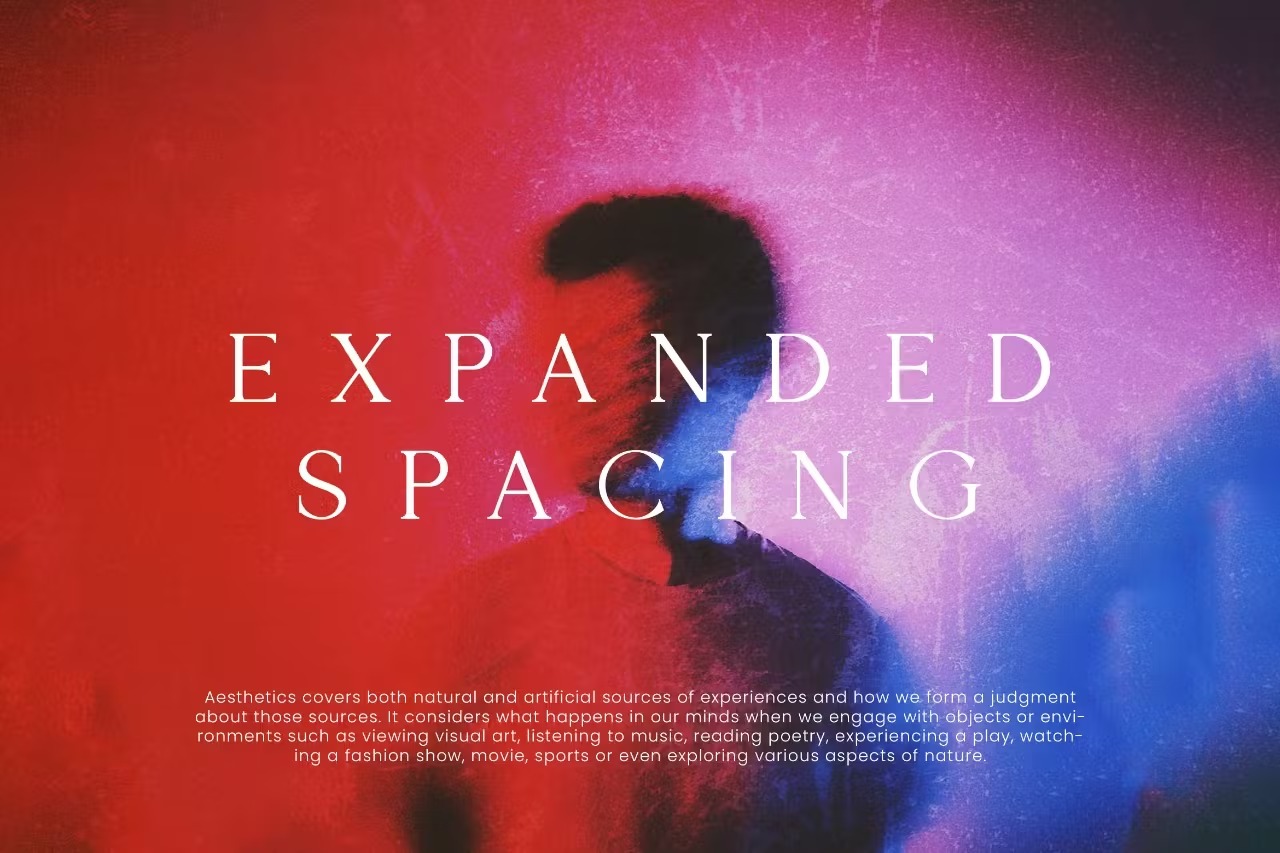
Morgan – Clean Serif Font
Morgan – Clean Serif Font, is a sleek and clean serif font. Fall in love with its incredibly versatile style and use it to create beautiful wedding invitations, gorgeous stationery, eye-catching social media posts and so much more!